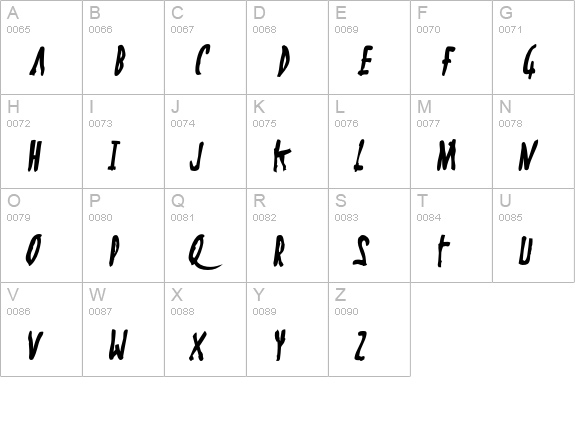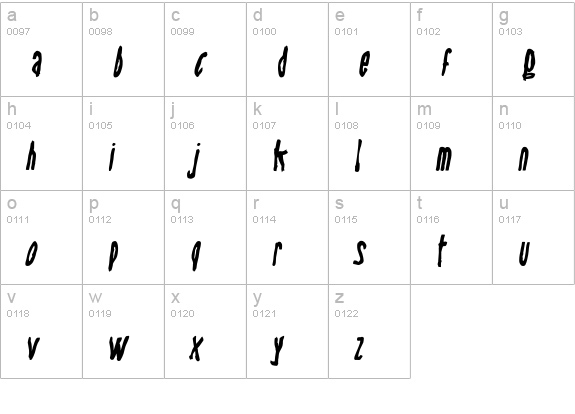
Steel-StringBoldItalic is an exquisite font that effortlessly combines strength, style, and a touch of elegance. With its bold and striking appearance, this font commands attention and demands to be noticed. The italicized slant adds a unique flair, giving any text a dynamic and captivating look. This font is the ideal choice for projects that require a modern and edgy aesthetic. Whether you're designing a logo, creating eye-catching headings, or crafting attention-grabbing posters, Steel-StringBoldItalic is sure to make a lasting impression. The versatility of Steel-StringBoldItalic lies in its ability to adapt to various design styles. It complements both minimalistic and elaborate layouts, seamlessly blending with different themes and color schemes. Its clean lines and sharp angles ensure readability, even at smaller sizes, making it perfect for both print and digital media. What's even better is that Steel-StringBoldItalic is available for free download at FontsMarket.com. You can easily access this font, allowing you to unleash your creativity without any limitations. Whether you're a professional designer or a casual enthusiast, this font is at your fingertips, ready to elevate your projects to new heights. So why wait? Embrace the power and sophistication of Steel-StringBoldItalic today. Download it for free at FontsMarket.com and witness the transformative impact it can have on your designs. Let your creativity soar with this exceptional font that effortlessly combines boldness and elegance.